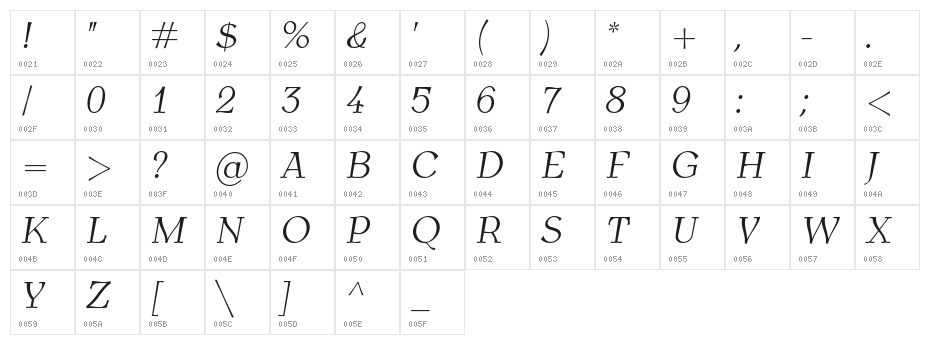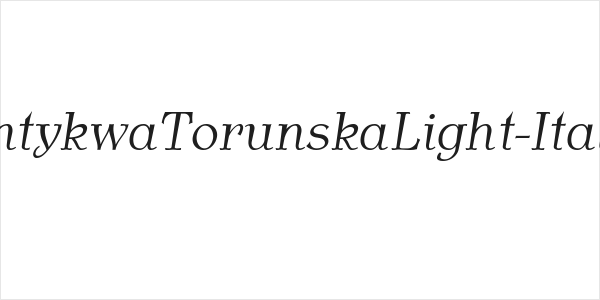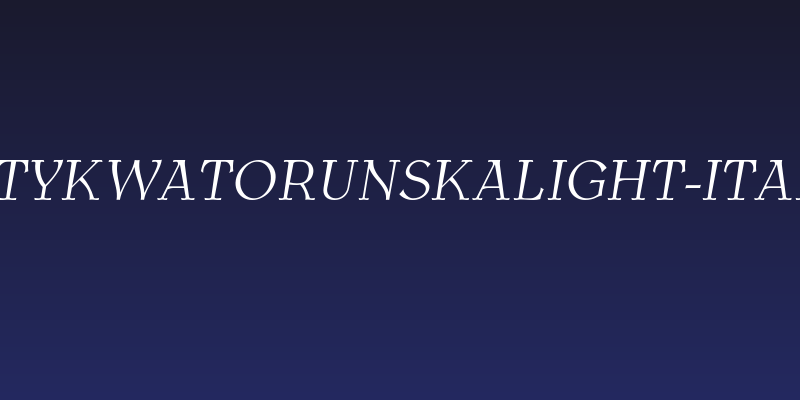
AntykwaTorunskaLight-Italic Font
AntykwaTorunskaLight-Italic Description
This font exhibits a classic serif style with a light and elegant touch. The italicized form adds a graceful slant to each character, enhancing its sophisticated appearance. The serifs are pronounced yet refined, contributing to a traditional aesthetic. The uppercase letters maintain a strong presence, while the lowercase letters are more delicate, offering a harmonious balance. The numerals are clear and consistent, matching the overall style of the alphabet. Special characters are well-integrated, maintaining the font's cohesive look. The stroke contrast is moderate, providing a smooth reading experience.
| Proposed Projects | Ideal for formal invitations, elegant branding, editorial design, and classic book typesetting. |